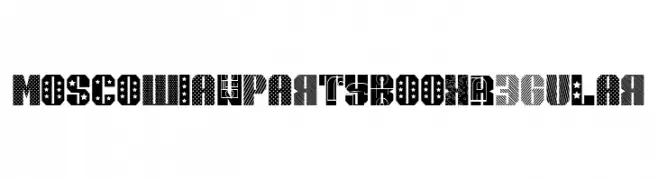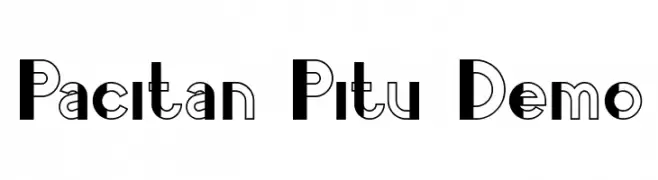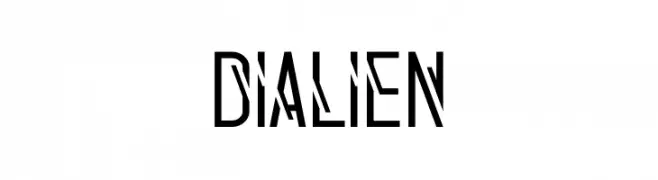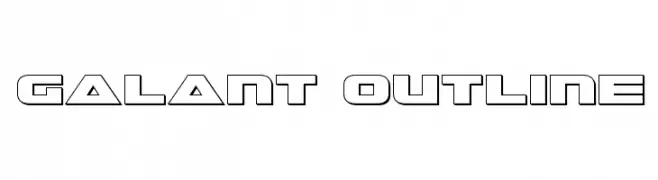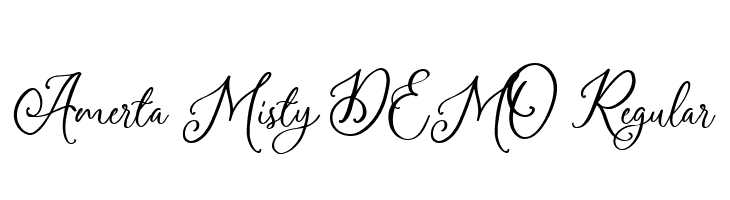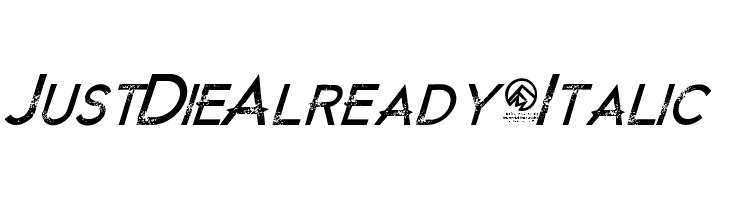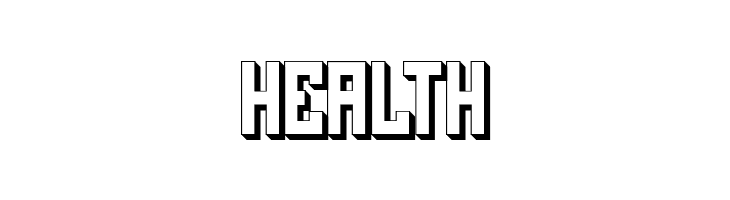
A bold, decorative font with diverse patterns and textures in each character.
A dynamic, angular italic font with a modern and edgy style.
A tall, narrow, and geometric font with a modern and sleek appearance.
A bold, modern font with dual-tone geometric design.
A bold, distressed font with an eroded, industrial look.
A futuristic, geometric font with sharp angles and a bold, edgy appearance.
An elegant, flowing script font with a handwritten style.
Elegant, handwritten script font.
A bold, geometric outline font with a modern and structured appearance.